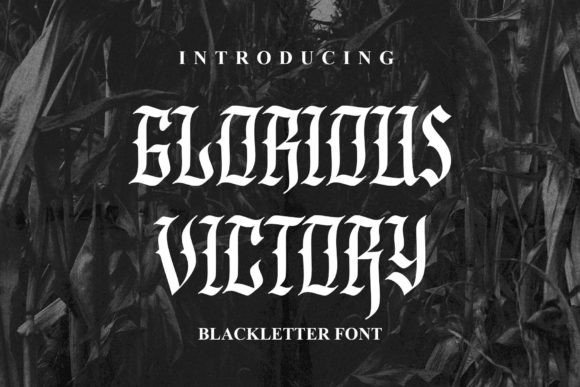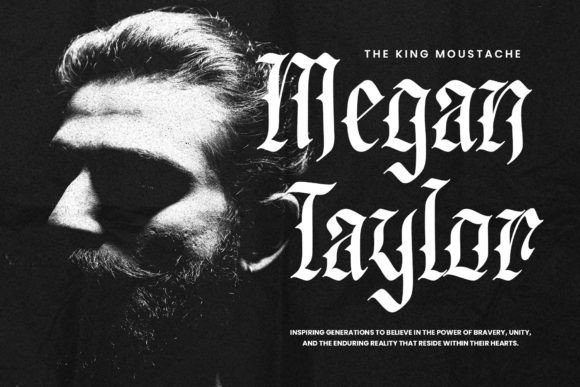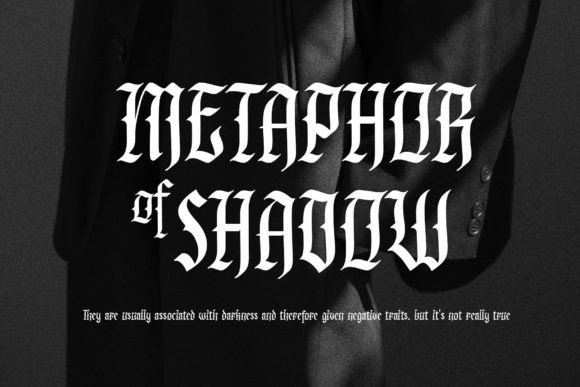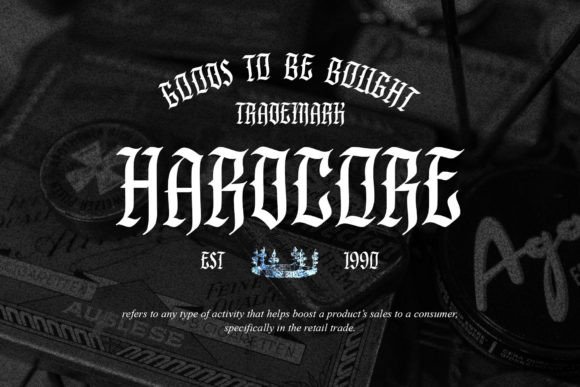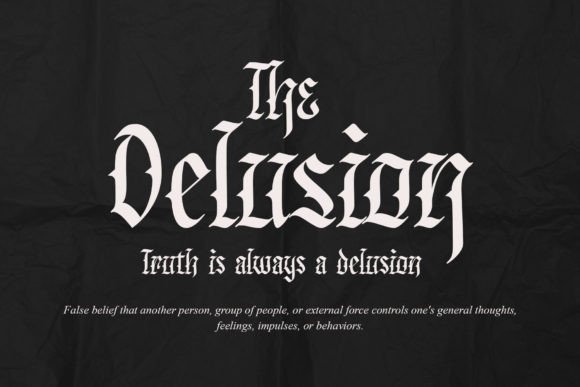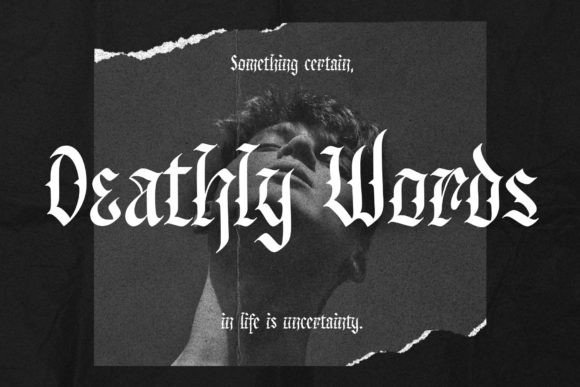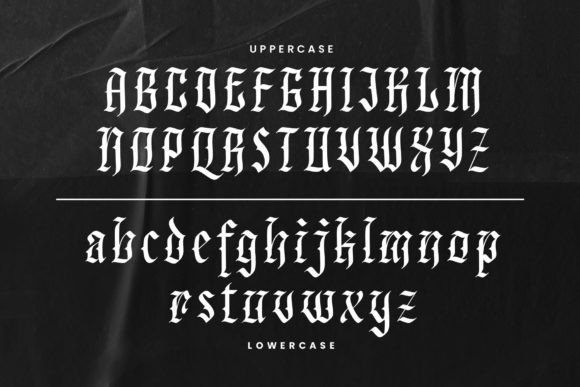
Embracing the Dark Side of Creativity
As designers, we’ve all been there – staring at a blank canvas, waiting for that spark of inspiration to strike. For me, it was a late-night movie marathon, surrounded by the eerie glow of a projector and the haunting melodies of a gothic soundtrack. It was in that moment, amidst the darkness and the underground culture, that I stumbled upon the perfect font to bring my creative vision to life: the Glorious Victory Font.
This meticulously crafted blackletter font seamlessly blends Fraktur and Old English styles, exuding strength and unwavering conviction. With its ornate design, the Glorious Victory Font is the perfect choice for a wide range of applications, from displays and posters to branding and logotypes. For designers, this font offers a valuable asset, allowing them to tap into the gothic aesthetics and create designs that truly stand out.
Glorious Victory Font Key Features
- Unique Characteristics: The font features a unique blend of classical and modern elements, with intricate details and flourishes that evoke a sense of grandeur and triumph.
Glorious Victory Font Review
Overall, I was excited to dive into the Glorious Victory Font and see what it had to offer. While it’s not without its flaws, I do appreciate the unique aesthetic it brings to the table.
- The font’s bold, triumphant feel is perfect for titles and headings.
- It’s highly legible, even at smaller font sizes, which is a plus for designers who want to make an impact without sacrificing readability.
- The font’s versatility extends to its suitability for a wide range of industries, from sports to politics.
- The font’s design can feel a bit over-the-top, which may not be suitable for more subdued or professional projects.
- Some users may find the font’s shape and style a bit too ornate, which can be distracting in certain contexts.
- The font’s weight and spacing can be a bit inconsistent, which may require some additional tweaking to achieve the desired look.
Overall, I think the Glorious Victory Font is a solid choice for designers who want to make a bold statement. While it may not be the best fit for every project, it’s definitely worth considering for titles, headings, and other high-impact applications.
Tips for Getting the Most Out of Glorious Victory Font
Here are some tips to help you get the most out of Glorious Victory Font:
– Use it for titles and headings to add a touch of elegance and sophistication.
– Experiment with different font sizes and styles to achieve the desired look.
– Pair it with other fonts to create a unique and eye-catching combination.